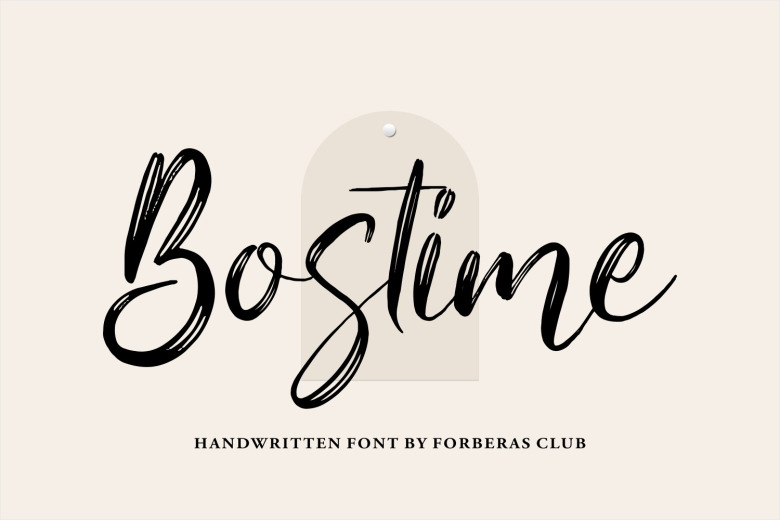
Bostime Font
Bostime is a flowing, delicate, and brushed freehand font. Bostime with smooth curves created a fashion brand and elegant with a free flair; it’s perfect for fashion branding, designed to adds an attractive brand extension to your projects quickly with winds.
Perfect for branding projects, Logo design, Clothing Branding, product packaging, magazine headers, or simply as a stylish text overlay to any background image.
Bostime Brush Script Font